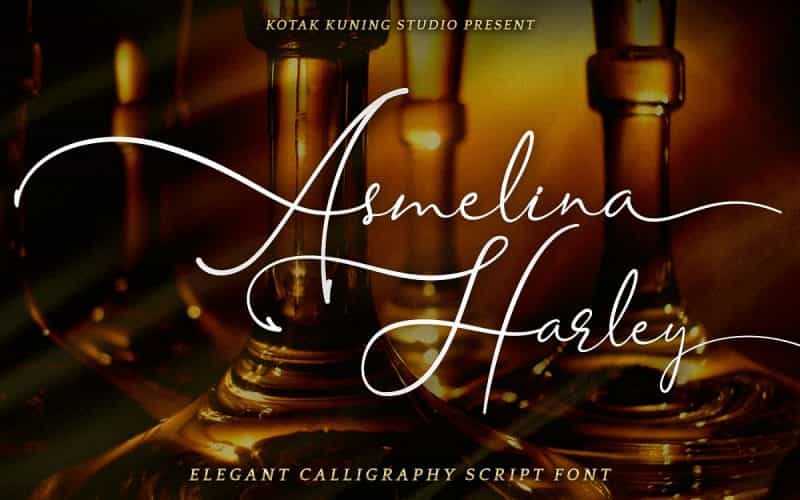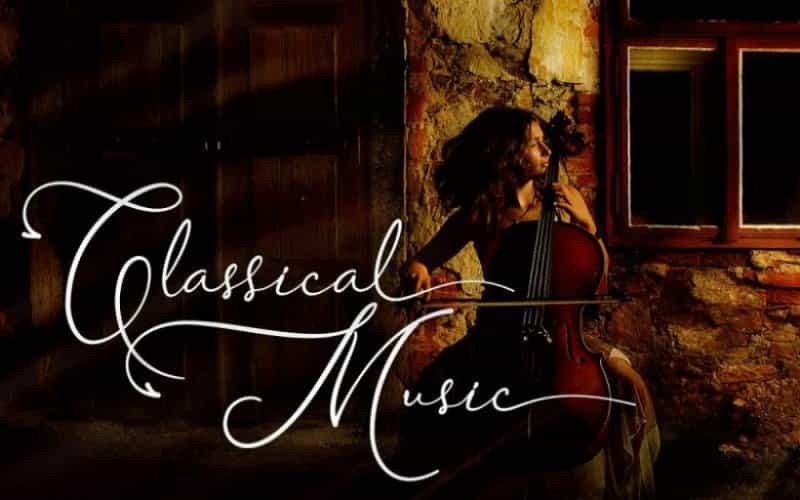
A graceful calligraphy script font. It is the best way to create an elegant stylish outfit or to add a bit of class to your designs. The script has a lot of natural looking ligatures in its OpenType features thus the font looks as close to the natural handwriting as possible.